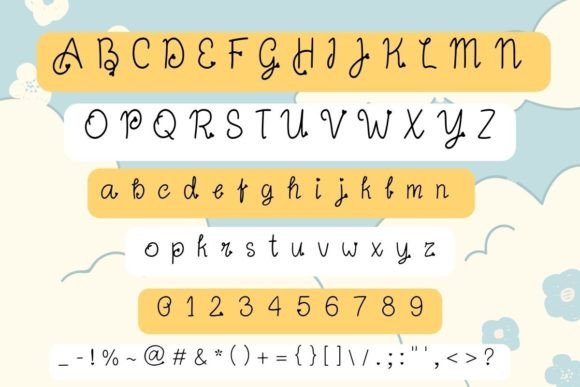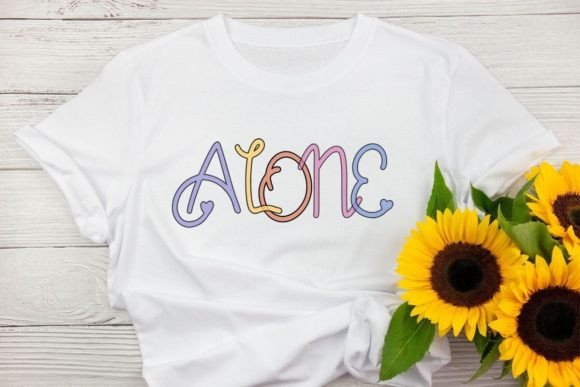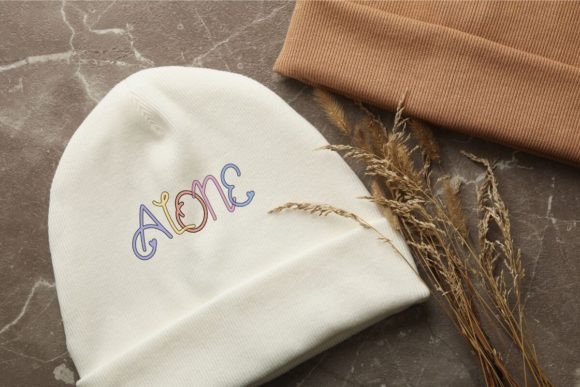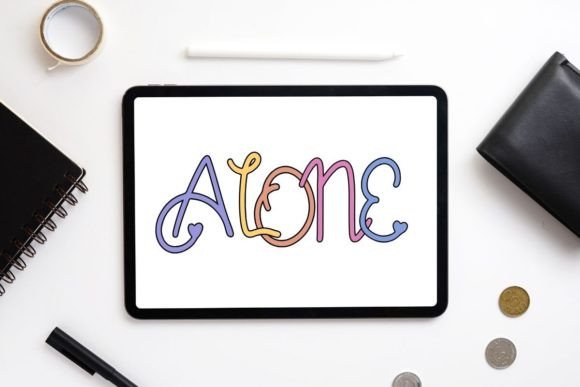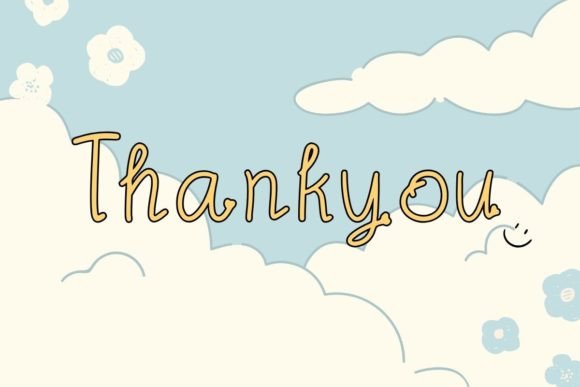
Introducing Alone Font: Elevate Your Designs with Elegance and Whimsy
In the world of typography, fonts play a pivotal role in conveying messages, evoking emotions, and creating lasting impressions. Among the myriad of fonts available, the Alone Font stands out as a beacon of elegance and playfulness. This funny and stylish sans serif handwritten font is meticulously designed to add a touch of sophistication to any project, making it a perfect choice for designers and crafters alike.
The Essence of Alone Font
Alone Font is characterized by its graceful and fluid letterforms, which exude a sense of beauty and refinement. This font is not just a typeface; it’s an expression of creativity and individuality. Its unique blend of elegance and whimsy makes it an ideal choice for a wide range of design applications, from branding and invitations to editorial design and beyond.
Key Features of Alone Font
- Funny and Stylish: Alone Font brings a touch of humor and style to your designs, setting them apart from the mundane.
- Sans Serif Handwritten: Its sans serif handwritten style offers a modern and clean look, while still retaining the warmth of handwritten typography.
- Elegant and Refined: The font’s graceful letterforms add an air of elegance and sophistication to any project.
- Versatile: Suitable for various design applications, including branding, invitations, editorial design, and more.
Applications of Alone Font
The versatility of Alone Font makes it a valuable asset for designers and crafters. Here are some of the key areas where this font can make a significant impact:
Branding
In the realm of branding, establishing a unique identity is crucial. Alone Font can help brands stand out with its distinctive and stylish appearance. Whether it’s for a logo, business cards, or brand guidelines, this font ensures that your brand’s message is conveyed with elegance and sophistication.
Invitations
Invitations are the first glimpse into an event’s theme and tone. Using Alone Font for invitations can set the stage for a memorable experience. Its elegant and playful nature makes it perfect for wedding invitations, birthday parties, and corporate events.
Editorial Design
In editorial design, the choice of font can significantly affect the readability and aesthetic appeal of the content. Alone Font offers a unique solution for magazines, blogs, and books, providing a touch of personality and style to the text.
Tips for Using Alone Font Effectively
To maximize the potential of Alone Font, consider the following tips:
- Pair with Complementary Fonts: Use Alone Font in conjunction with other fonts to create visual interest and hierarchy.
- Experiment with Sizes and Colors: Play with different sizes and colors to emphasize certain elements and add depth to your design.
- Maintain Readability: Ensure that the font size and line spacing are optimized for readability, especially in body text.
Alone Font is more than just a typeface; it’s a tool for designers and crafters to infuse their projects with elegance, whimsy, and personality. Its unique blend of style, elegance, and playfulness makes it an invaluable asset for anyone looking to elevate their designs. Whether you’re working on branding, invitations, editorial design, or any other project, Alone Font is sure to leave a lasting impression.
Embrace the beauty and creativity of Alone Font, and let it be the voice that brings your designs to life.